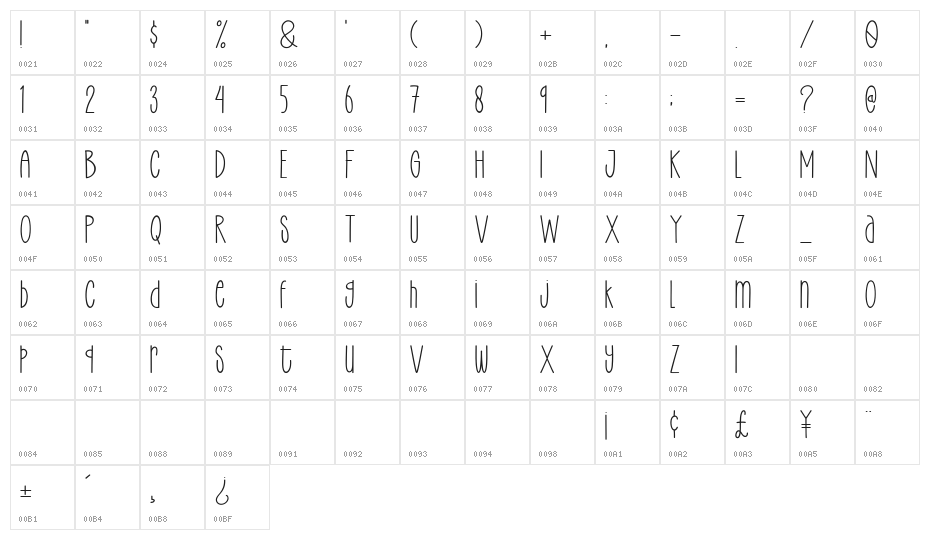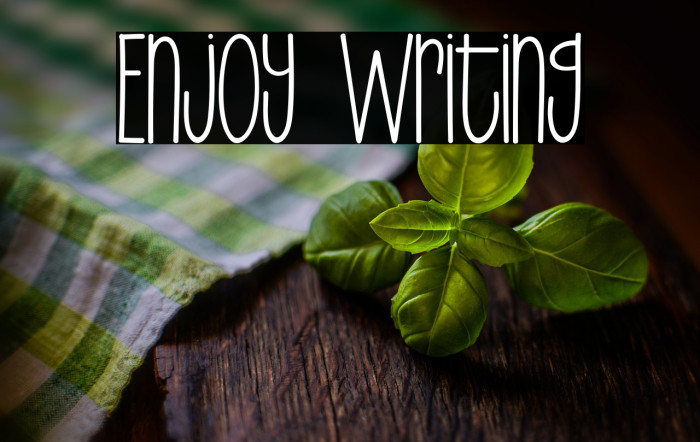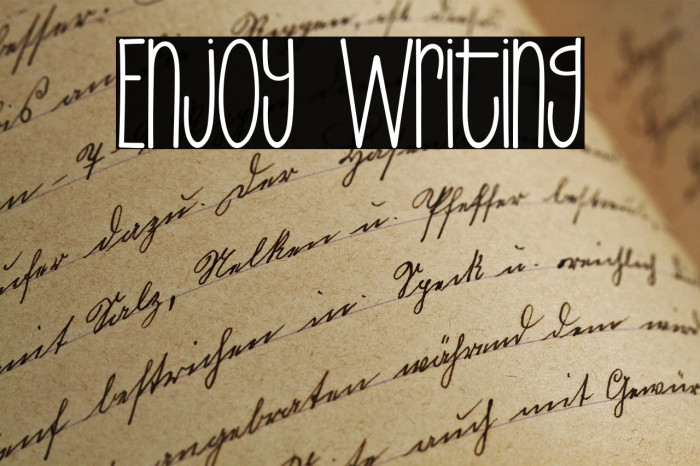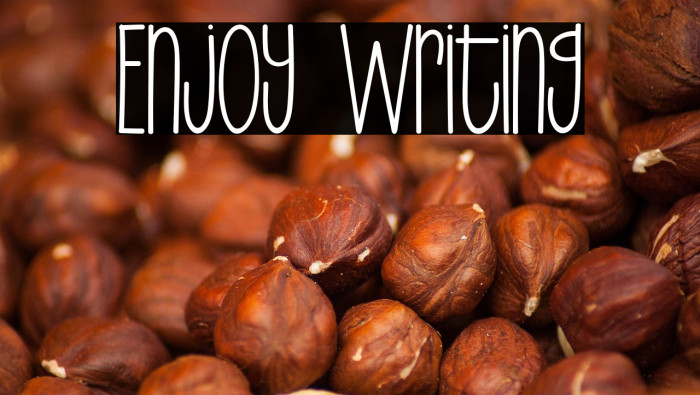
Enjoy Writing Font
Enjoy Writing Description
This font features a playful and whimsical design with tall, narrow characters that have a hand-drawn feel. The letters are elongated with a consistent stroke width, giving them a unique and quirky appearance. The uppercase and lowercase letters maintain a cohesive style, with rounded edges and a slightly irregular baseline that adds to the charm. The numbers and special characters follow the same design principles, ensuring a harmonious look across all elements. This font is perfect for projects that require a fun and informal touch, such as children's books, greeting cards, or playful branding.
| Width | Condensed |
| Overall Style | Playful |
| Proposed Projects | Ideal for children's books, greeting cards, playful branding, and informal invitations. |